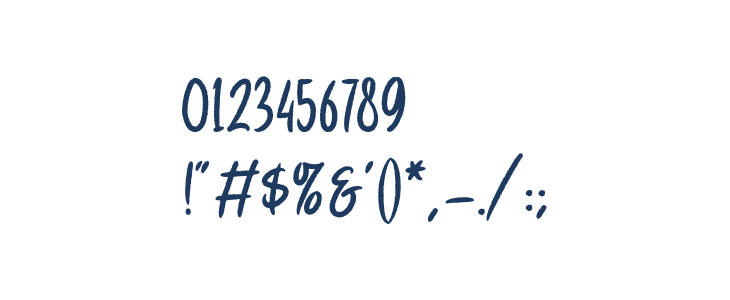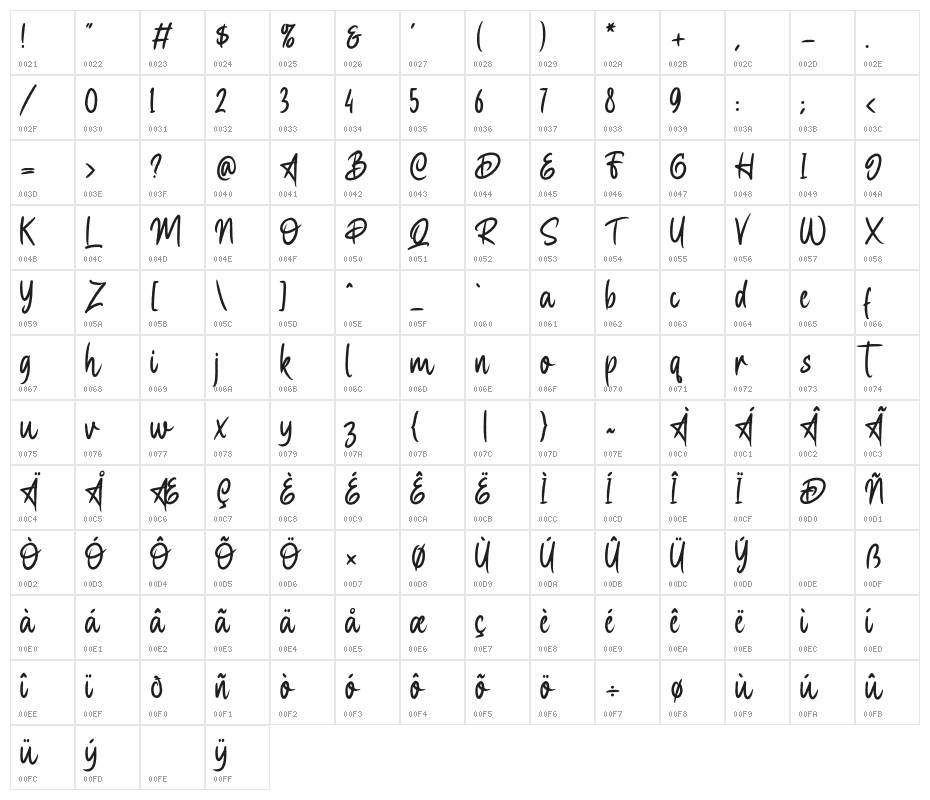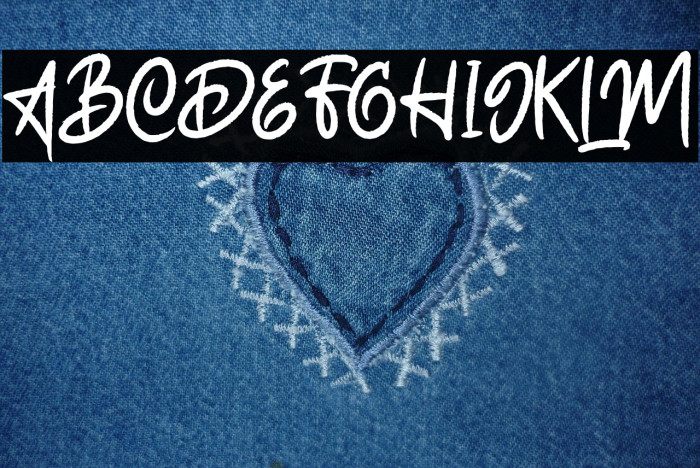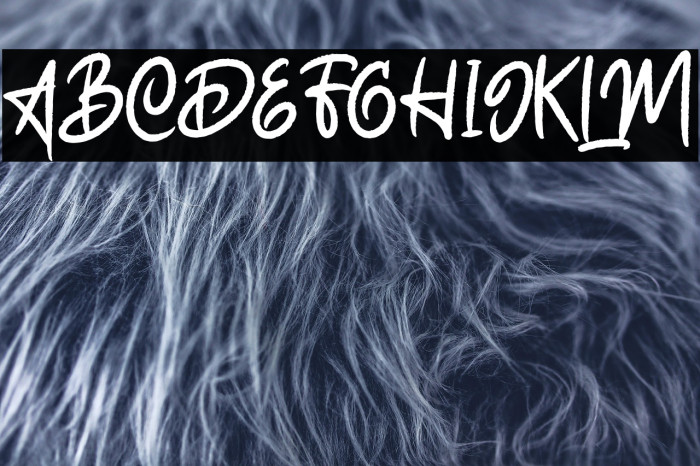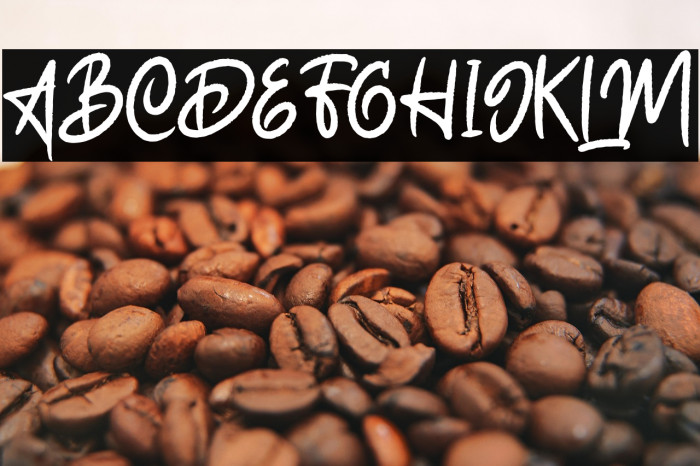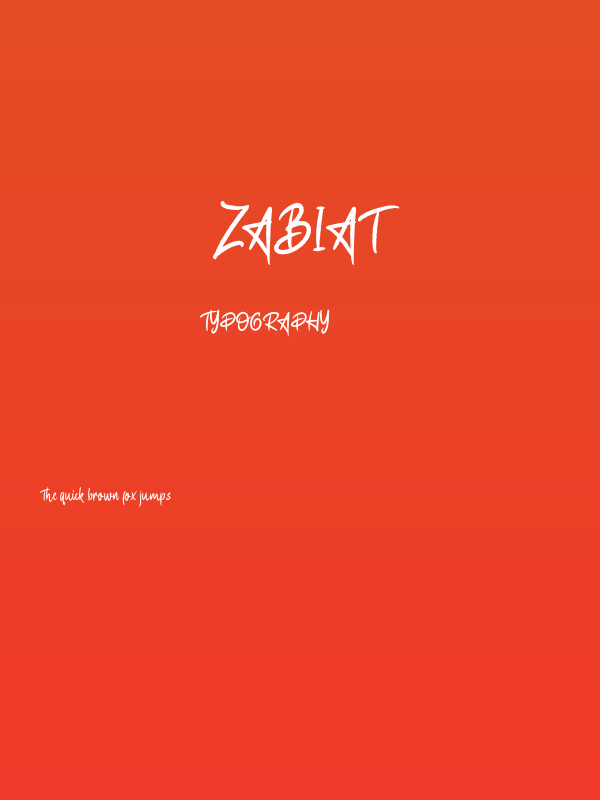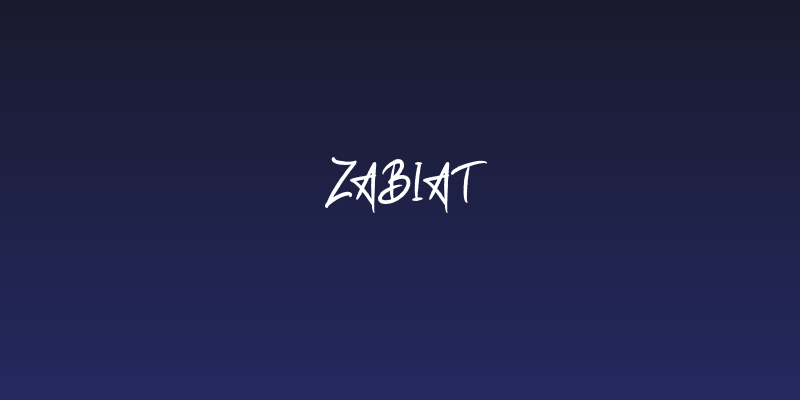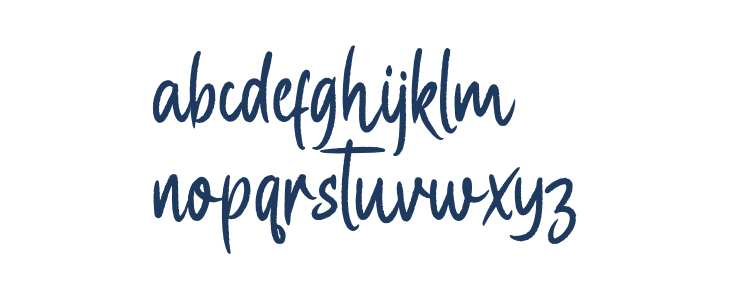
Zabiat Font
Zabiat Description
This font exhibits a dynamic and expressive handwritten style, characterized by its fluid and energetic strokes. The uppercase letters are bold and slightly slanted, giving a sense of motion and spontaneity. The lowercase letters maintain a consistent flow, with some characters extending below the baseline, adding to the casual and informal appearance. The numerals are well-integrated, matching the overall aesthetic with their rounded and slightly exaggerated forms. Special characters are creatively designed, maintaining the playful and artistic vibe of the font. This font is ideal for projects that require a personal touch or a creative flair.